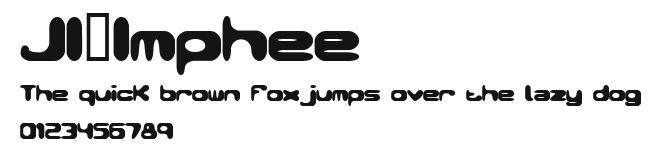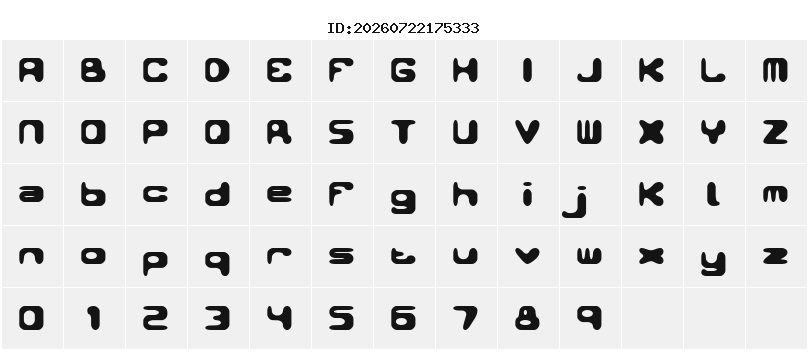
• Font Name: JI-Imphee
• Full Font Name: JI-Imphee
• Designer: JupiterImages
About JI-Imphee.ttf
JI-Imphee.ttf is a modern, elegant sans-serif font designed for ultimate readability and visual harmony. Perfect for branding, headlines, web design, and print materials.